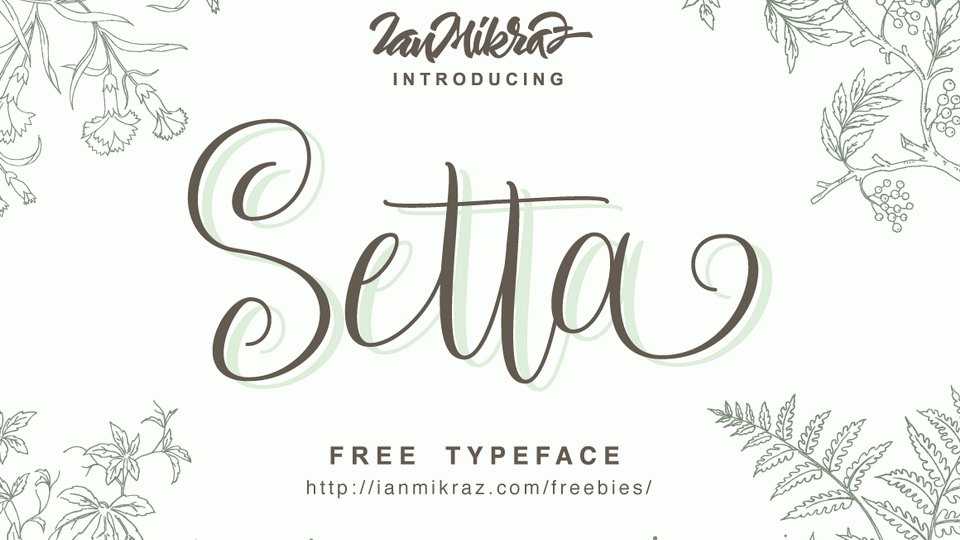
Download Setta Script font, a lovely modern calligraphy typeface with beauty swirls and elegant touch. Great for wedding decoration, invitation, greeting cards, printed quotes, social media and other beautiful designs.
Designer: Ian Mikraz